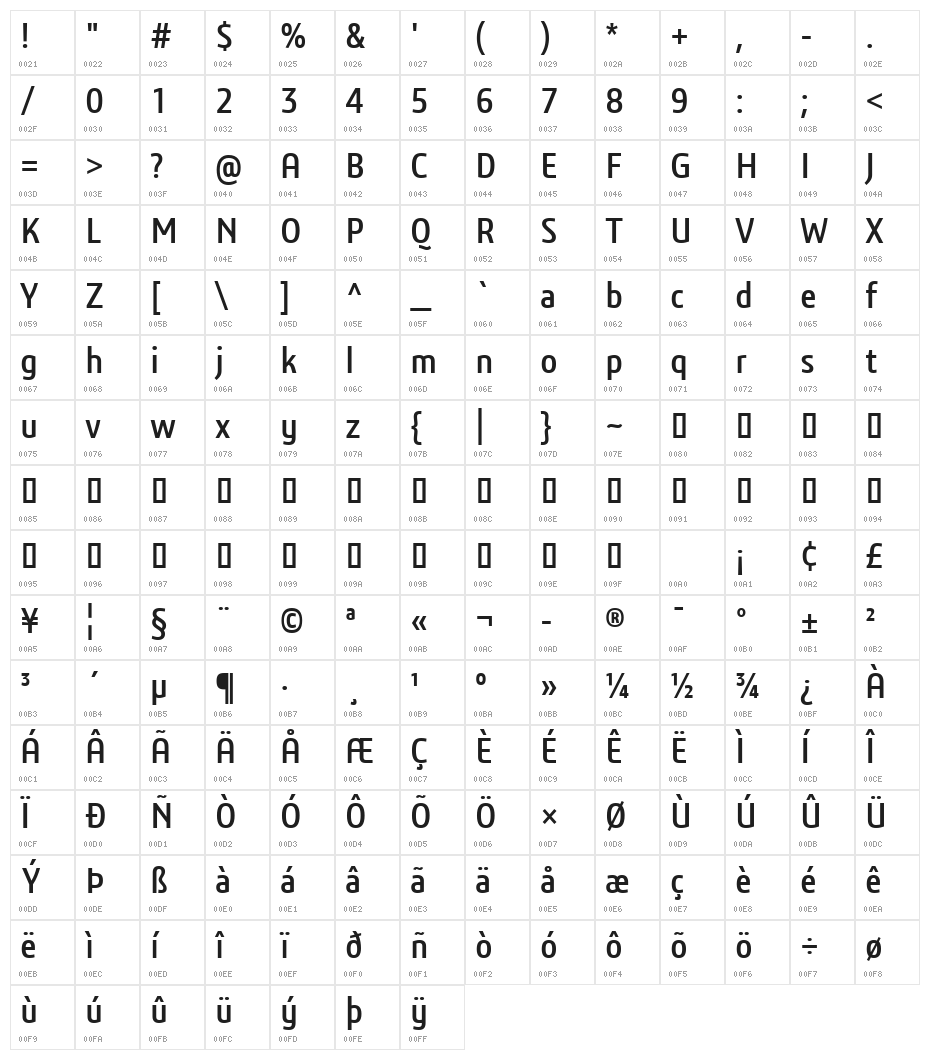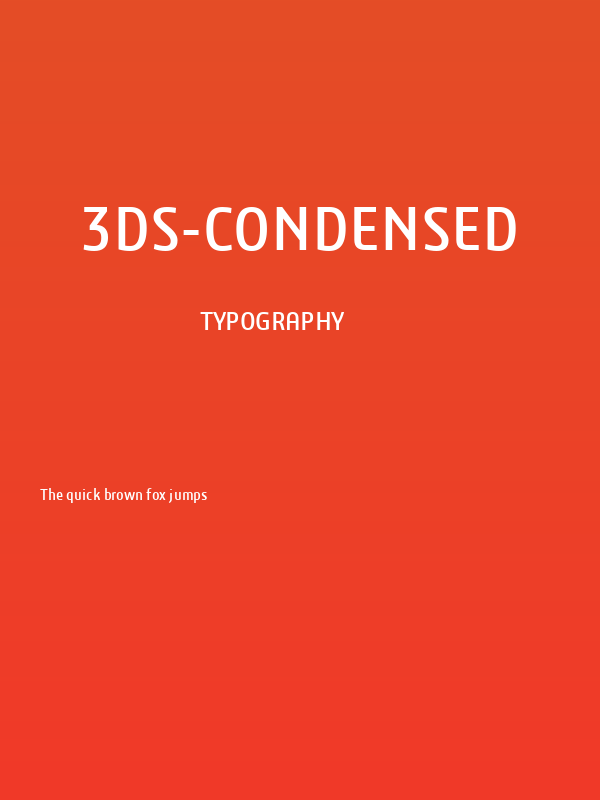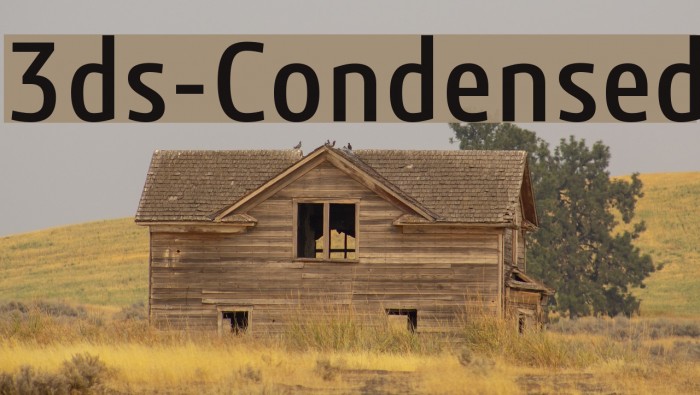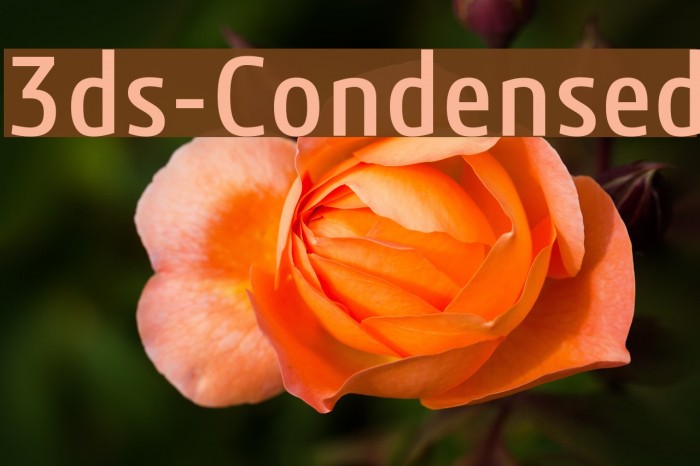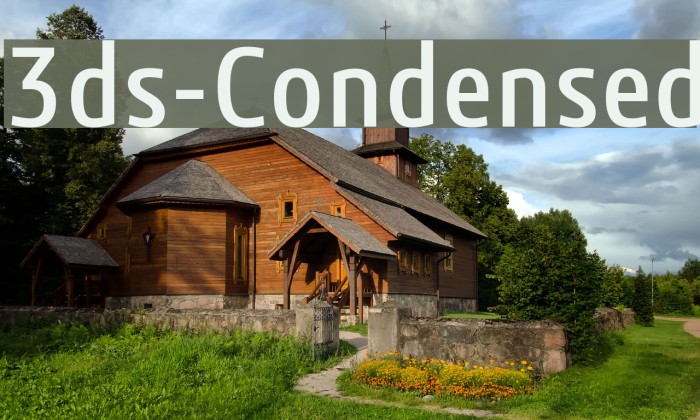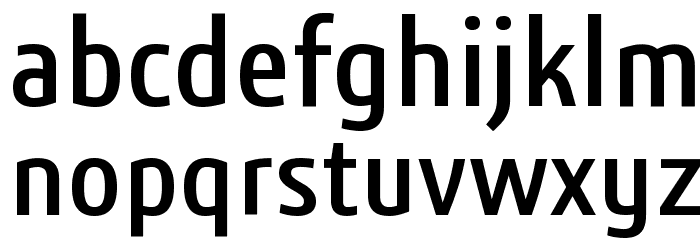
3ds-Condensed Font
3ds-Condensed Description
This font features a modern, clean design with a condensed structure, making it ideal for space-saving applications. The characters are uniform in width, contributing to a cohesive and organized appearance. The strokes are consistent, with medium contrast, providing a balanced and legible text. The uppercase and lowercase letters are well-proportioned, and the numerals are clear and distinct. Special characters are included, maintaining the font's overall aesthetic. This font is versatile, suitable for both digital and print media, and can be used effectively in various design projects.
| Proposed Projects | Ideal for branding, advertising, headlines, and editorial design. |